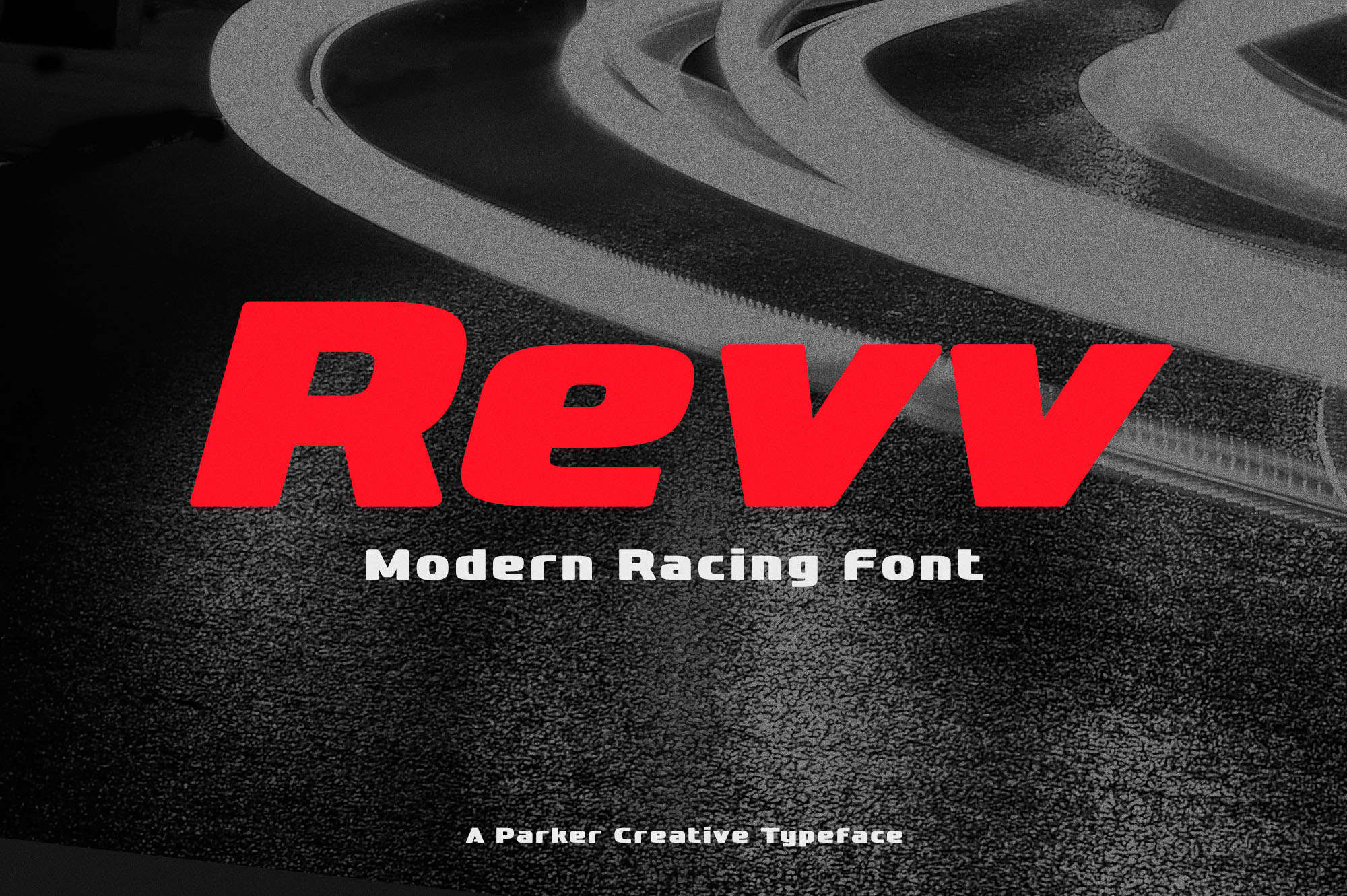
Revv Modern Racing Font
Introducing Revv, a modern racing font for motocross and motorsports branding. Revv features an expanded character set, regular and oblique variations, and a sharp number set. Bring a sense of speed and action to your next project with the aggressive angles and bold design of this typeface.
Ideal for decals, print projects, logos, headlines, apps and more, Revv is a modern take on classic racing car fonts that draw eyes both on designs and on the track.